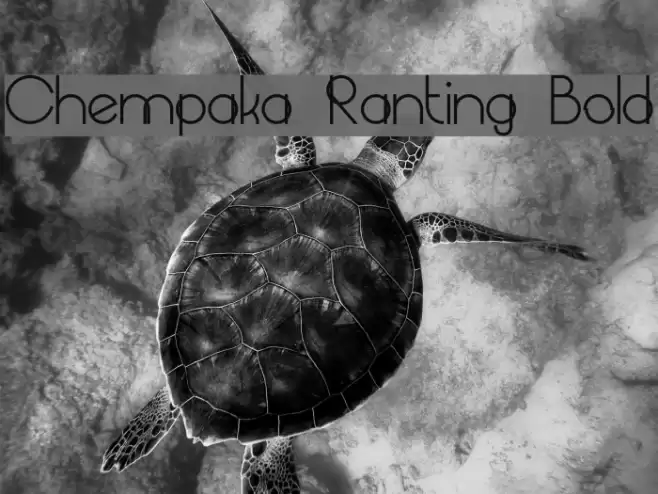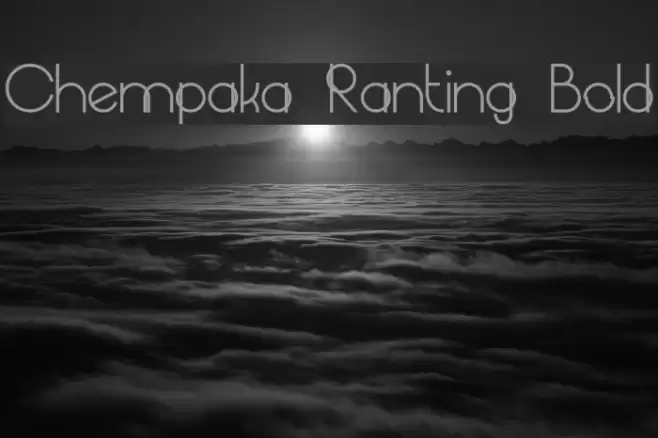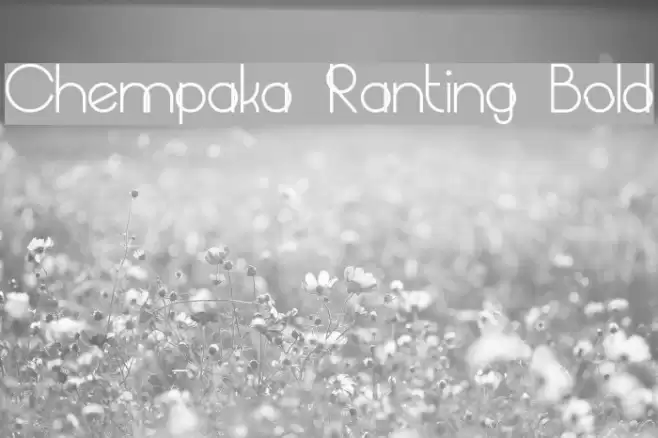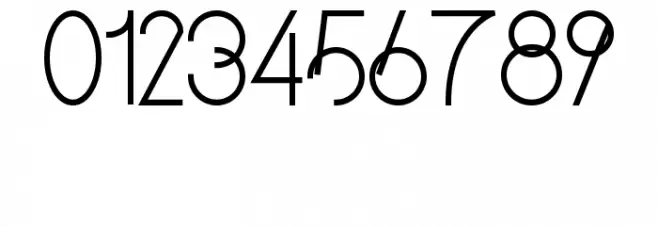
Chempaka Ranting Bold Font
Chempaka Ranting Bold Description
This font features a unique and modern design with a geometric and minimalist approach. The characters are constructed with clean lines and consistent stroke widths, giving it a sleek and contemporary appearance. The uppercase letters are tall and narrow, while the lowercase letters maintain a similar style, creating a harmonious balance. The numerals are distinct and easily readable, complementing the overall aesthetic. Special characters are designed to match the font's modern style, making it versatile for various applications.
A modern, geometric font with clean lines and consistent stroke widths from Uncategorized fonts.